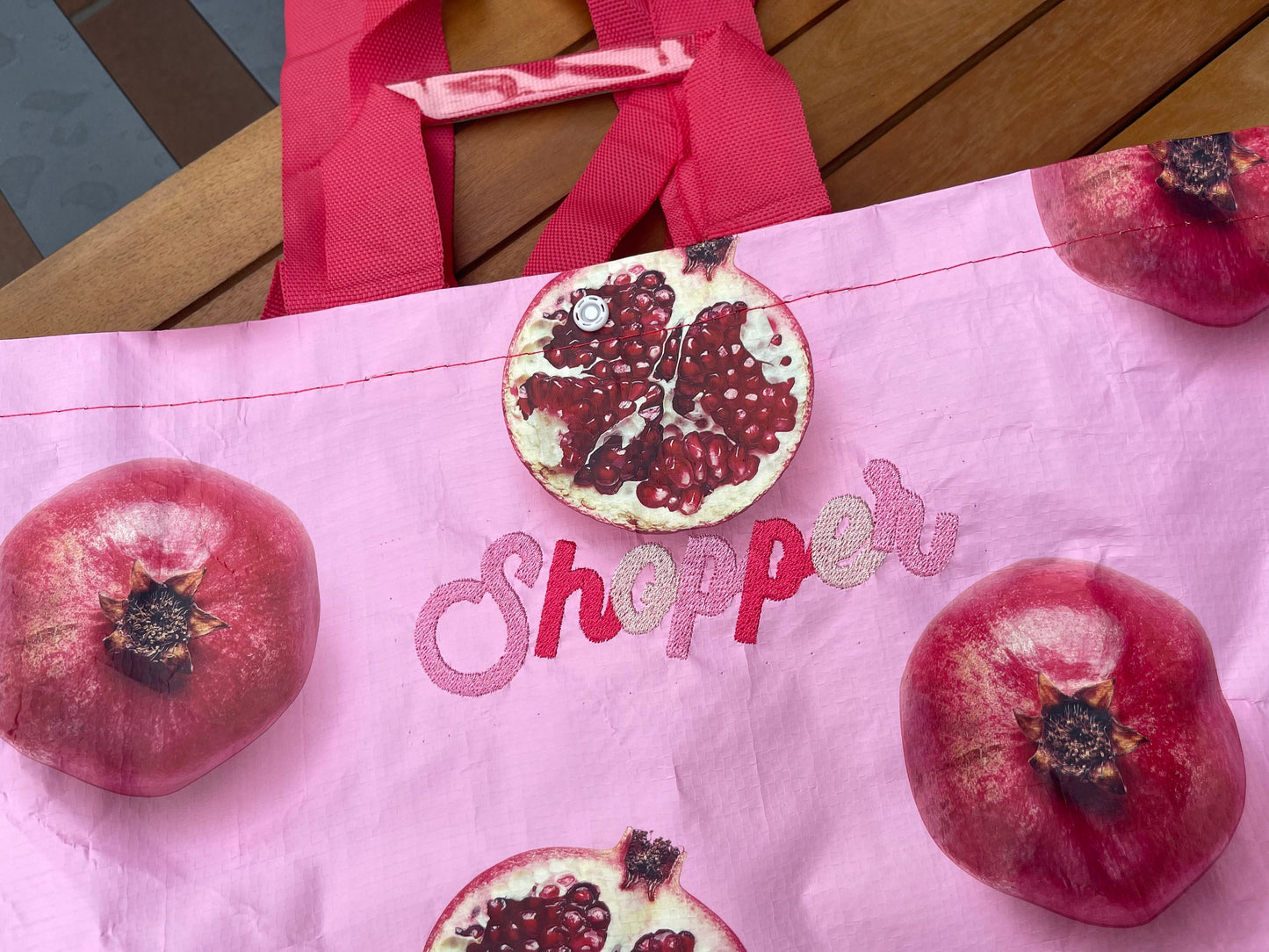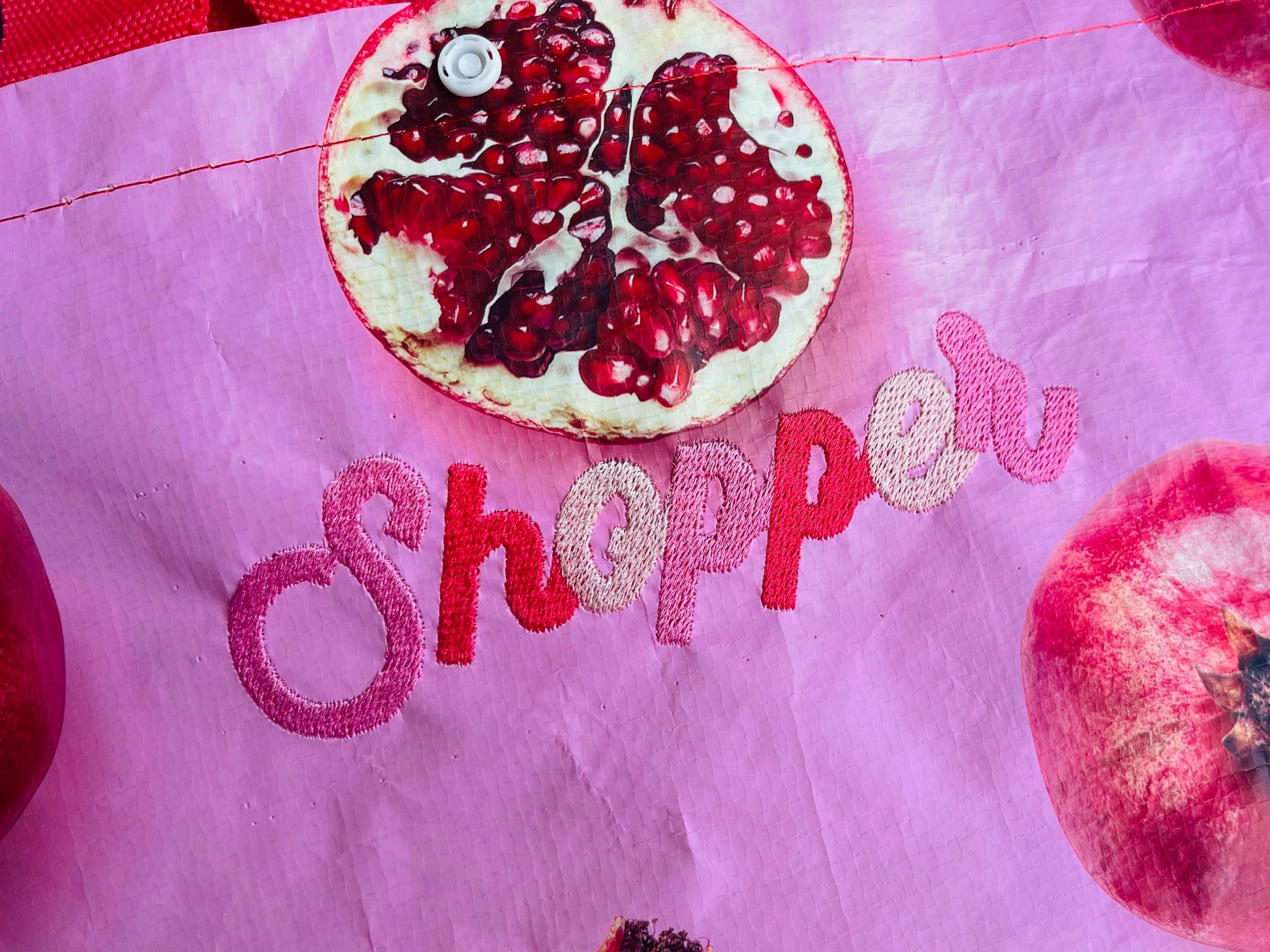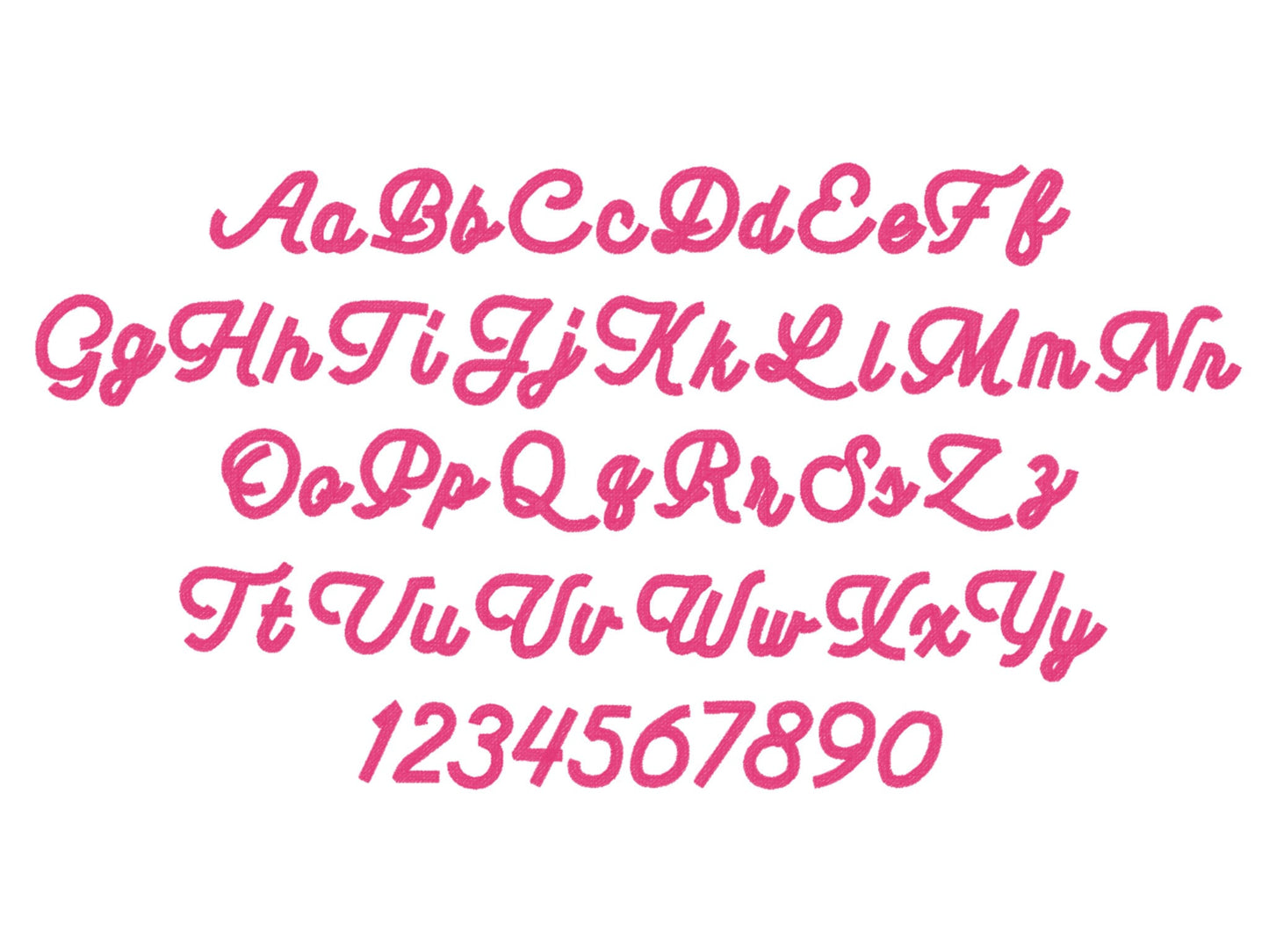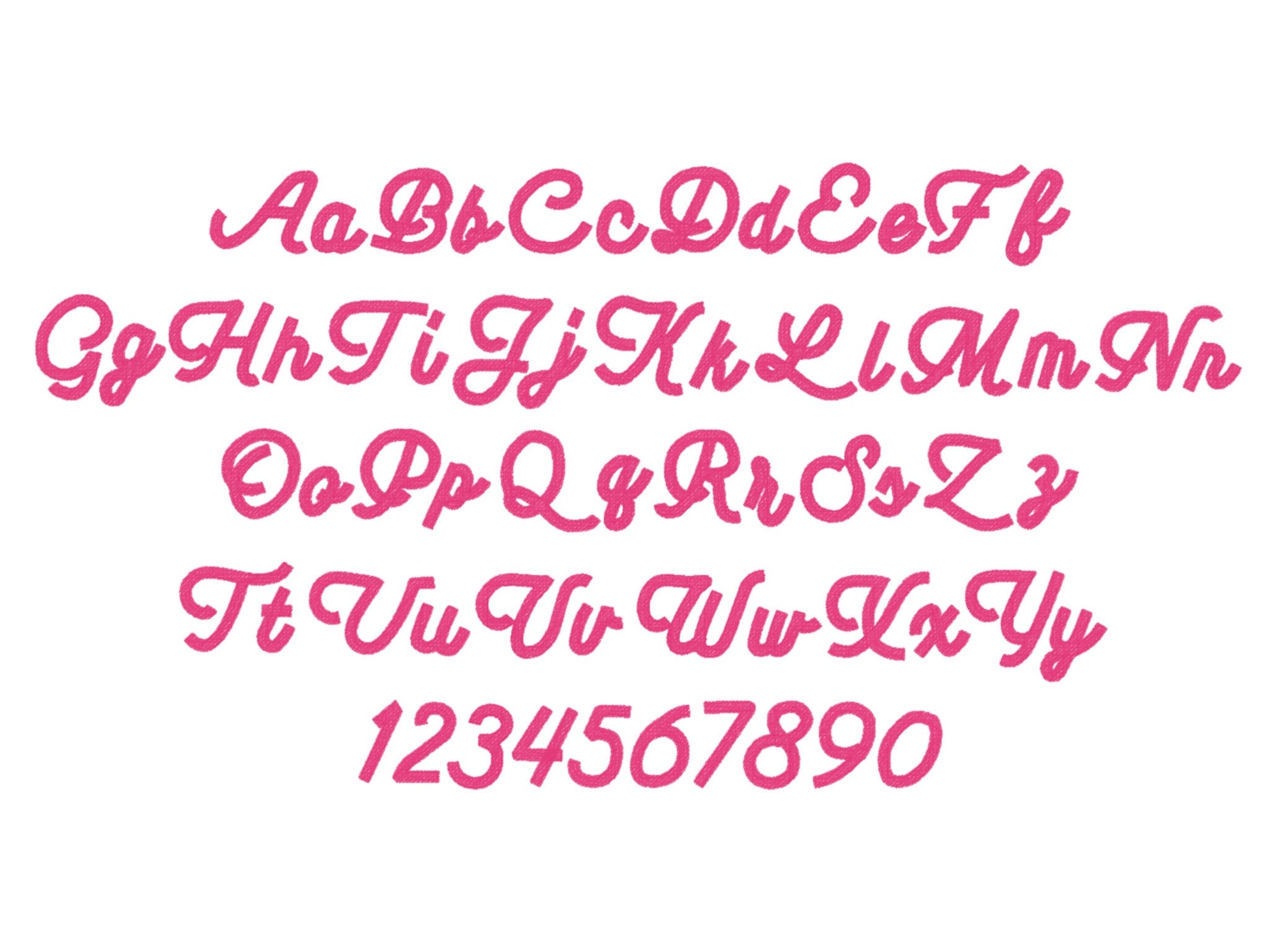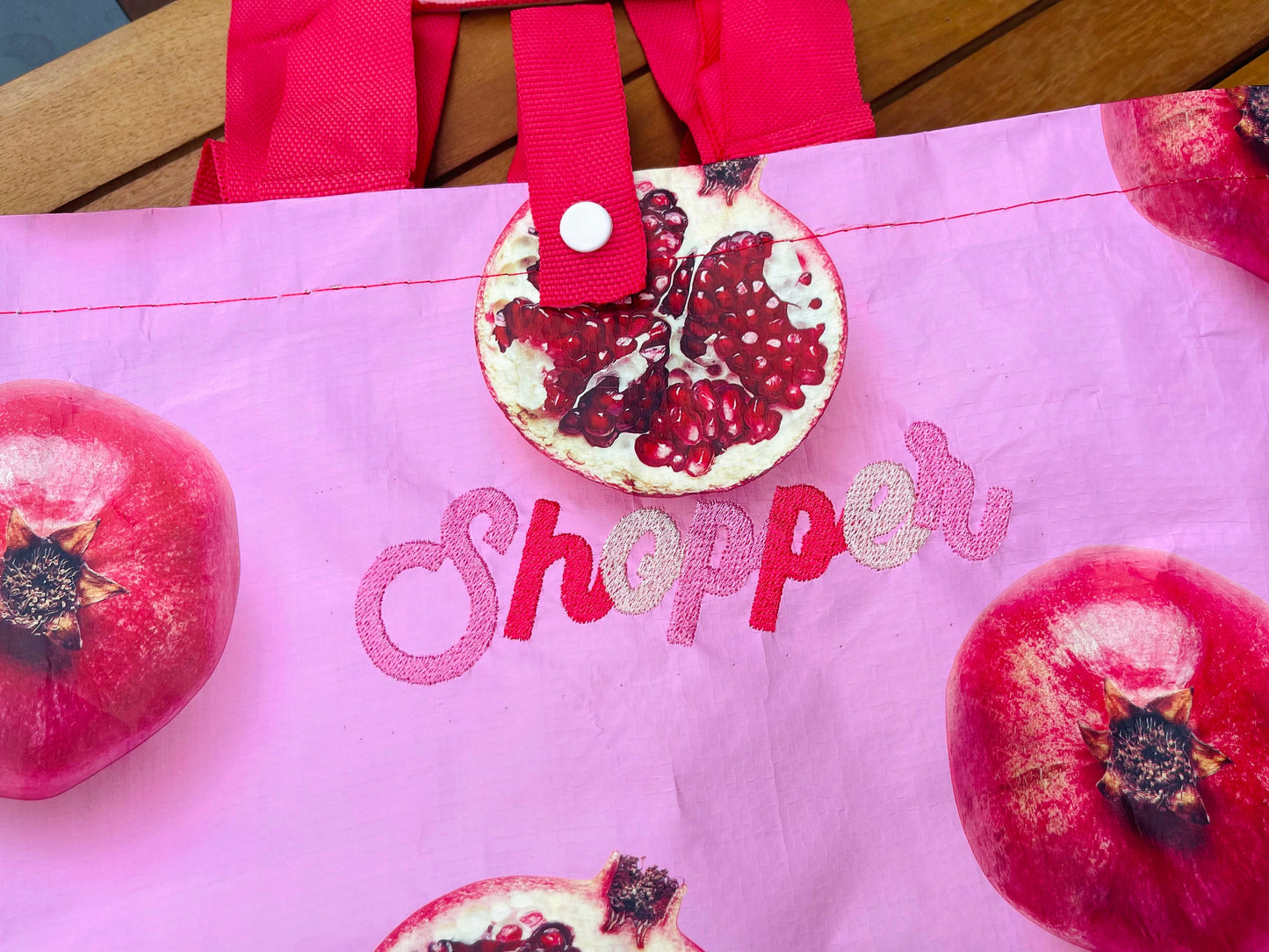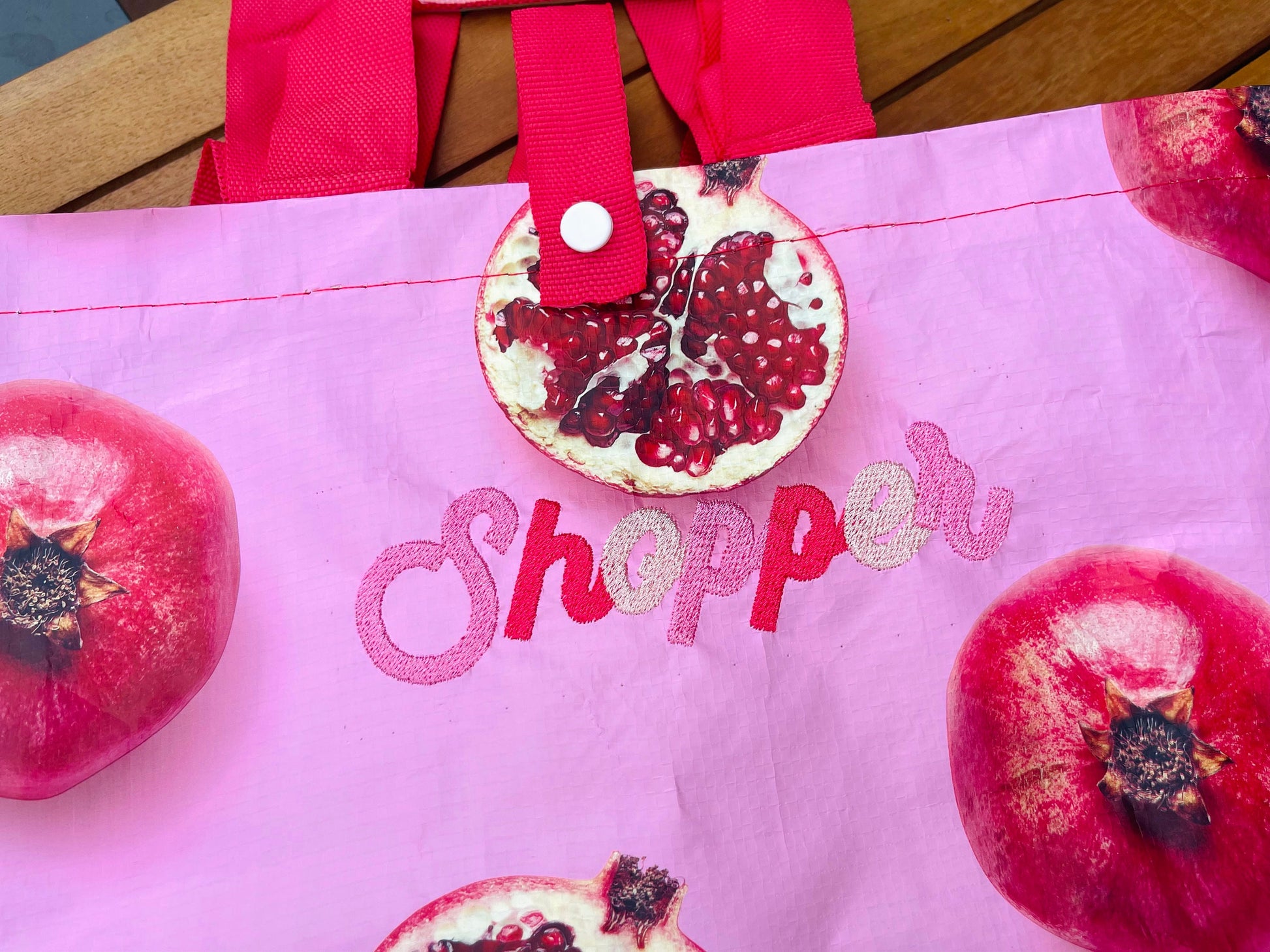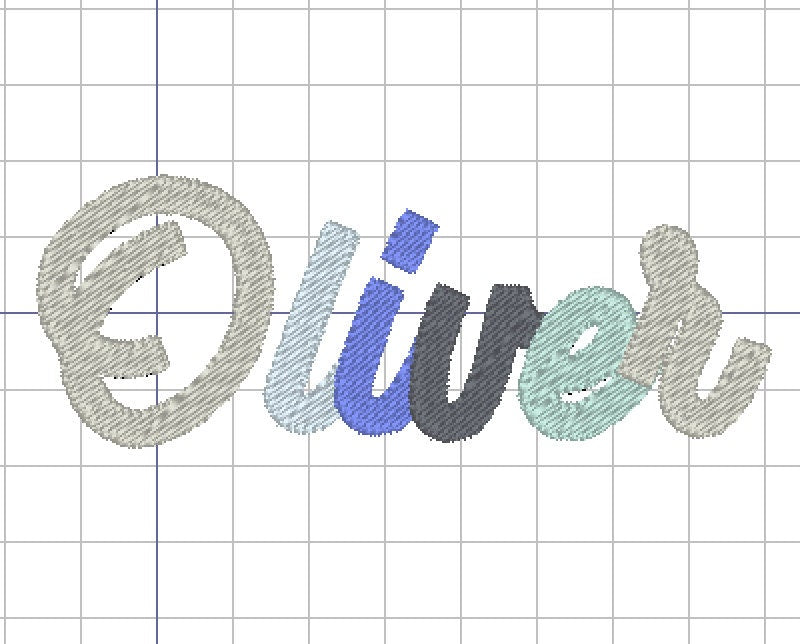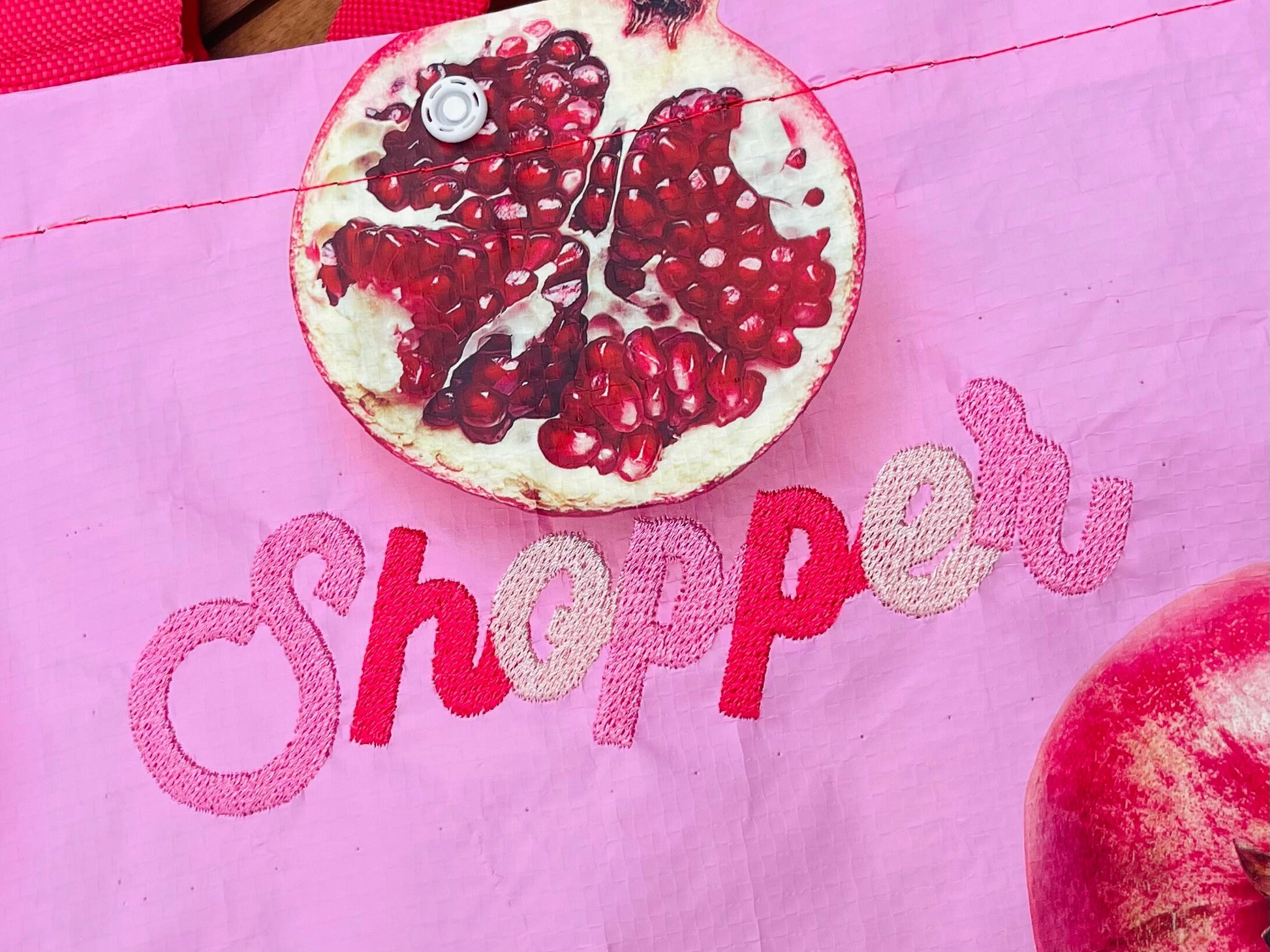
Or click to open the linkOliver, a playful fill stitch script font for kids' and baby names, monograms and gifts.
Uppercase and lowercase letters and numbers 0 to 9 in five sizes: 1, 1.3, 1.5, 2 and 2.2 inches. Solid fill stitch letters with a handwritten look.